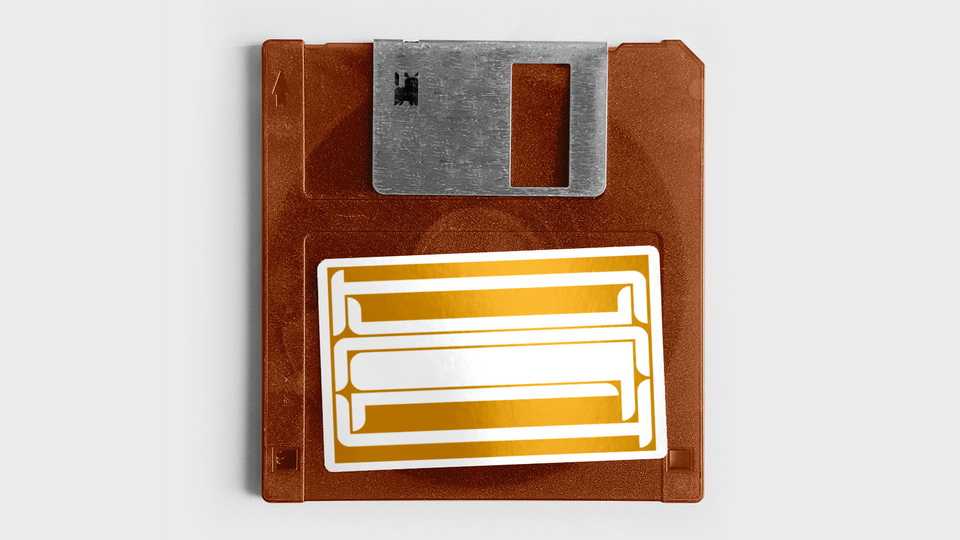
FPD Hungry Variable Font › Fontesk – Download Grátis
Download FPD Hungry typeface, a variable font in two axes that extends from a 3×5 grid to a 15×5 grid. Another constraint was constructing it solely out of squares and quarter-circles.
Designer: Felix Summ